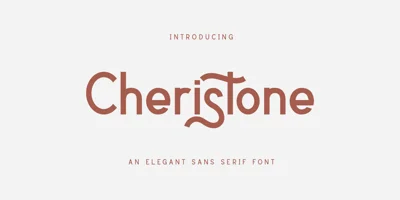
Cheristone Font
Cheristone Font is perfect for luxury jewelry branding, precious gemstone packaging, high-end estate signage, elegant monument inscriptions, premium stone masonry marketing, sophisticated crystal collections, upscale architectural elements, luxury memorial designs, fine art gallery nameplates, and any refined project that celebrates the enduring beauty and timeless elegance of natural stone craftsmanship.
What makes Cheristone Font exciting is its sophisticated elegance that captures the enduring beauty of precious stones and the timeless craftsmanship of master stoneworkers. This typeface embodies the essence of geological permanence with letterforms that suggest the careful carving of marble and the polished perfection of gemstones. The font's refined character makes it perfect for brands and projects that want to communicate luxury, permanence, and the sophisticated beauty that comes from centuries of skilled craftsmanship.
The Cheristone Font family includes multiple weights and elegant variations, featuring light, regular, and bold versions along with decorative elements and alternate characters inspired by classical stone carving and jewelry engraving techniques. This comprehensive collection allows designers to create sophisticated luxury typography that maintains the font's signature refined character while providing flexibility for various high-end and memorial design applications.
When exploring premium luxury typography, Cheristone Font offers designers an exceptional opportunity to work with a typeface that authentically represents the pinnacle of stone craftsmanship and jewelry artistry. This font demonstrates superior design thinking by incorporating the precision and permanence that define both geological formations and the meticulous work of master craftsmen who shape precious materials.
Professional designers appreciate Cheristone Font for its ability to instantly establish luxury credibility and timeless sophistication across various premium applications. The font's elegant character makes it particularly effective for jewelry brands, luxury real estate, and memorial services seeking to communicate quality, permanence, and the enduring value that defines true luxury and lasting beauty.
The timeless appeal of Cheristone Font lies in its perfect representation of geological permanence and crafted excellence that transcends fashion trends and economic cycles. This typeface serves as a powerful symbol of enduring value and the human desire to create beauty that lasts for generations, making it invaluable for projects celebrating lasting legacy and permanent beauty.
For creative professionals working with luxury and memorial brands, Cheristone Font represents the ultimate typography solution that brings authentic stone elegance and timeless sophistication to any application, ensuring designs reflect the enduring beauty and masterful craftsmanship that define the most precious and permanent expressions of human artistry.